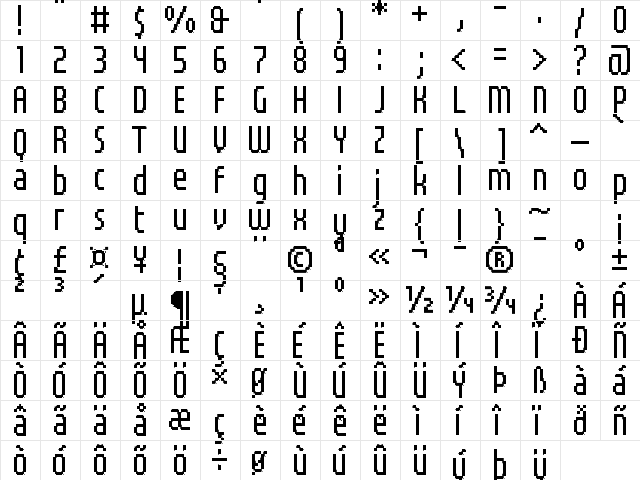
UF Elementar Basica 13.11.2 a Regular
| Foundry | Miguel Hernதez and Ultrafonts.com |
| Designer | Gustavo Ferreira |
Design Context for UF Elementar Basica 13.11.2 a Typeface
UF Elementar Basica 13.11.2 a is a composed and adaptable typeface that performs quietly and consistently across a wide range of design contexts.